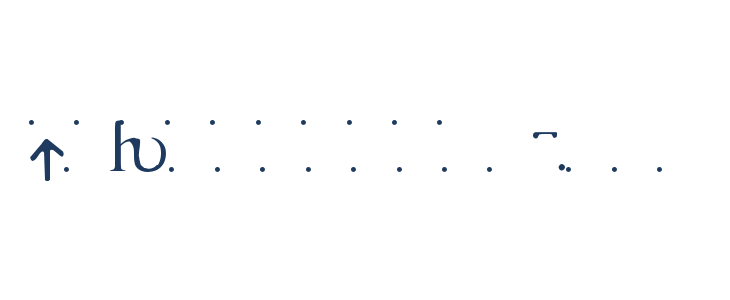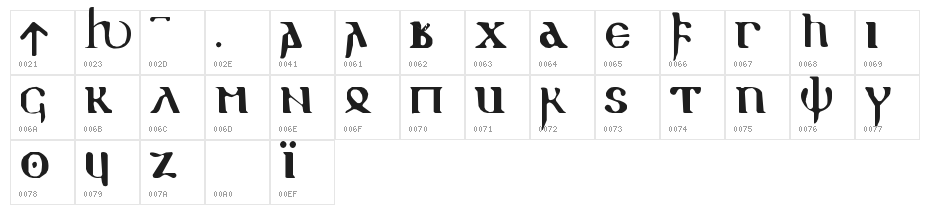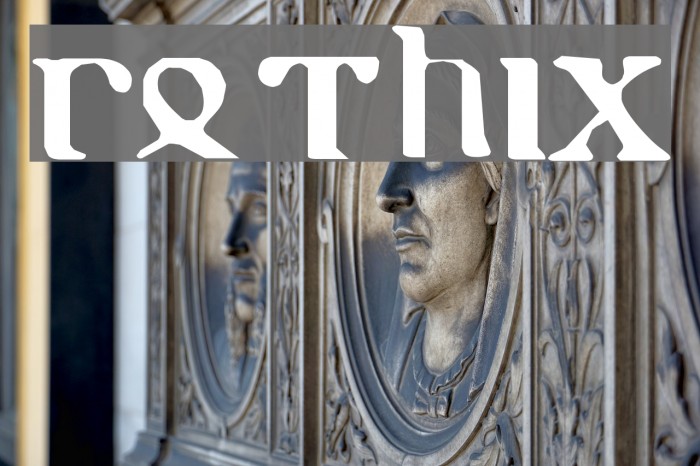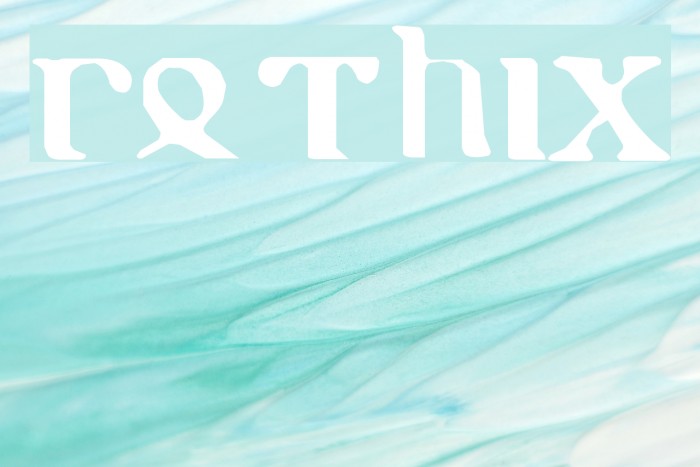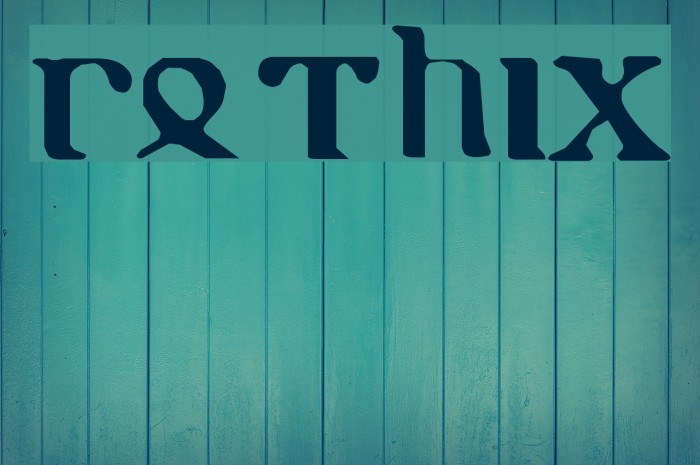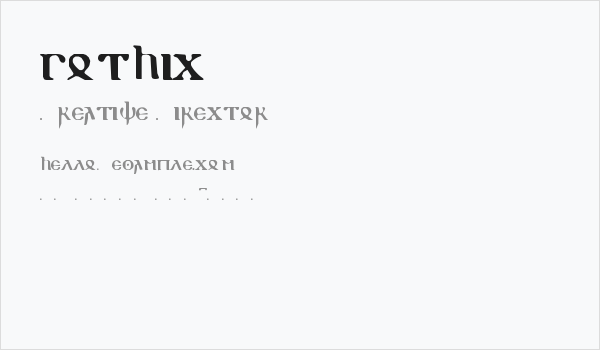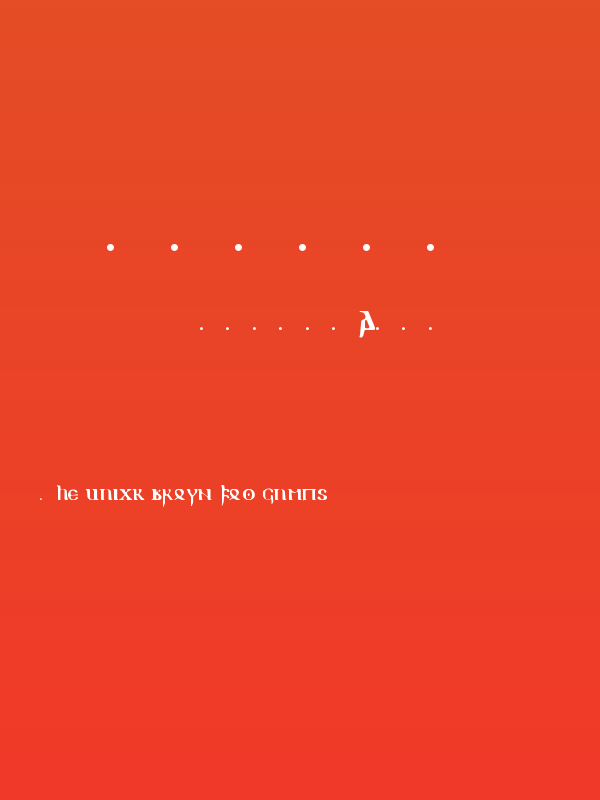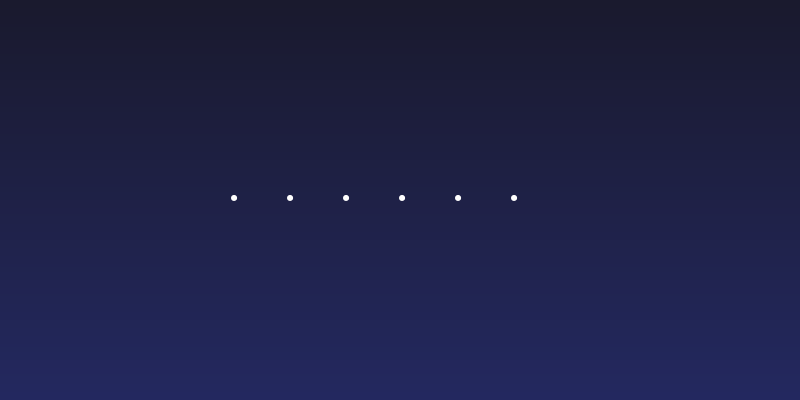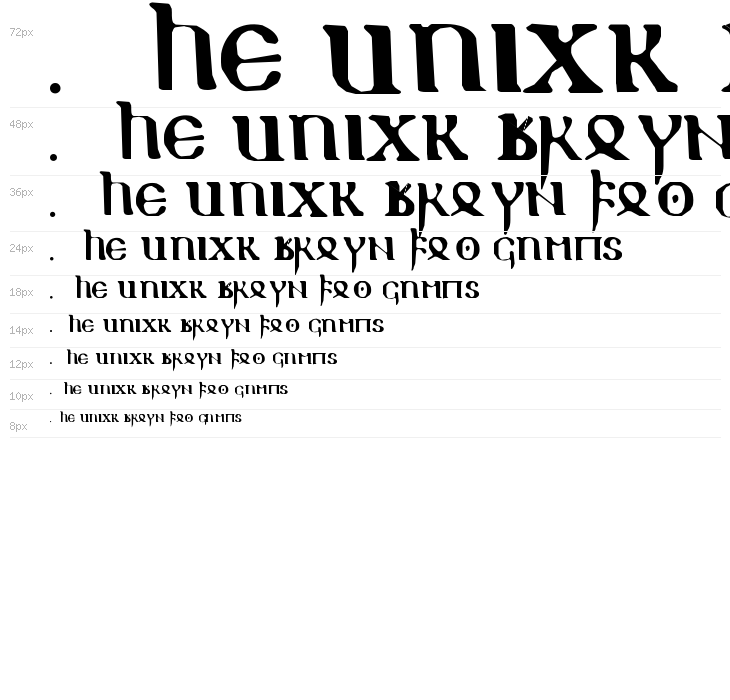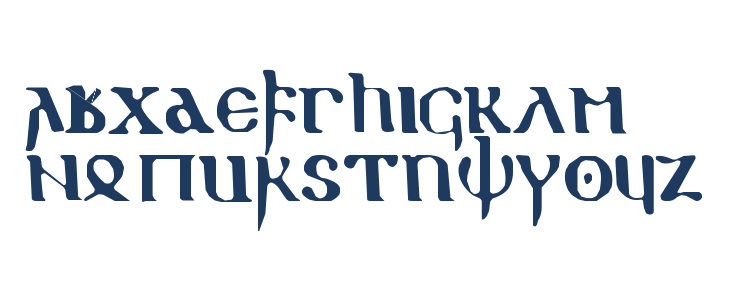
gothic Font
This font features a distinct Gothic style, characterized by its sharp, angular lines and intricate detailing. The uppercase letters exhibit a strong, bold presence with elaborate serifs and unique flourishes, giving them a medieval, historical feel. The lowercase letters maintain the same stylistic elements, offering a cohesive look throughout the typeface. The numerals and special characters are designed to match the ornate style, ensuring consistency across all glyphs. This font is ideal for projects that require a dramatic, old-world aesthetic.
Proposed ProjectsSuitable for historical-themed designs, book covers, posters, and branding that requires a dramatic, medieval touch.